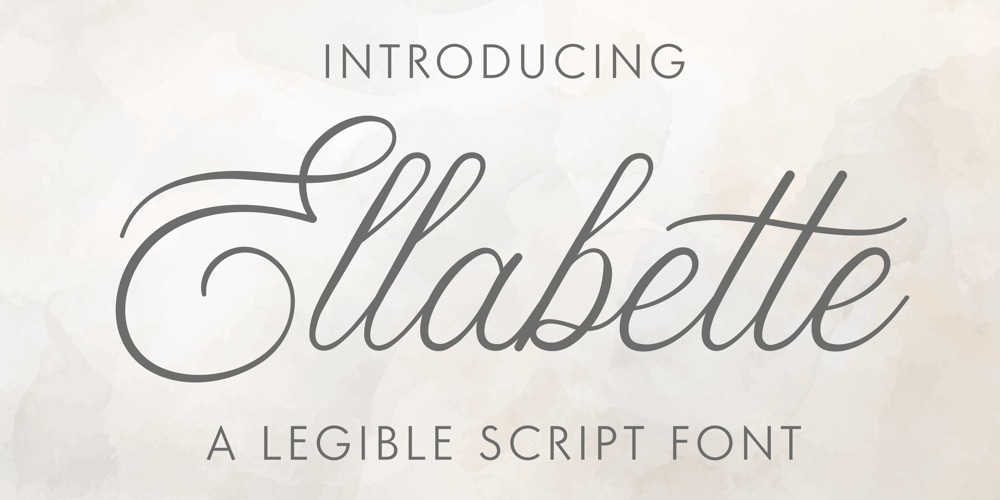
Ellabette Font Family was designed by Roland Hüse and published by Bombus Hollow. Ellabette contains 1 styles and family package options. Ellabette™ is a script font that was created by a wedding stationery designer after working in the industry for over a decade and getting request after request for script fonts that were formal but legible. Ellabette is warm and inviting, playful but elegant. Perfect for all things weddings, branding, editorial, social media, and websites. Designed with weddings in mind with fun special ligatures like “RSVP” “and” and “to” and works beautifully for legible address lists and envelope printing.